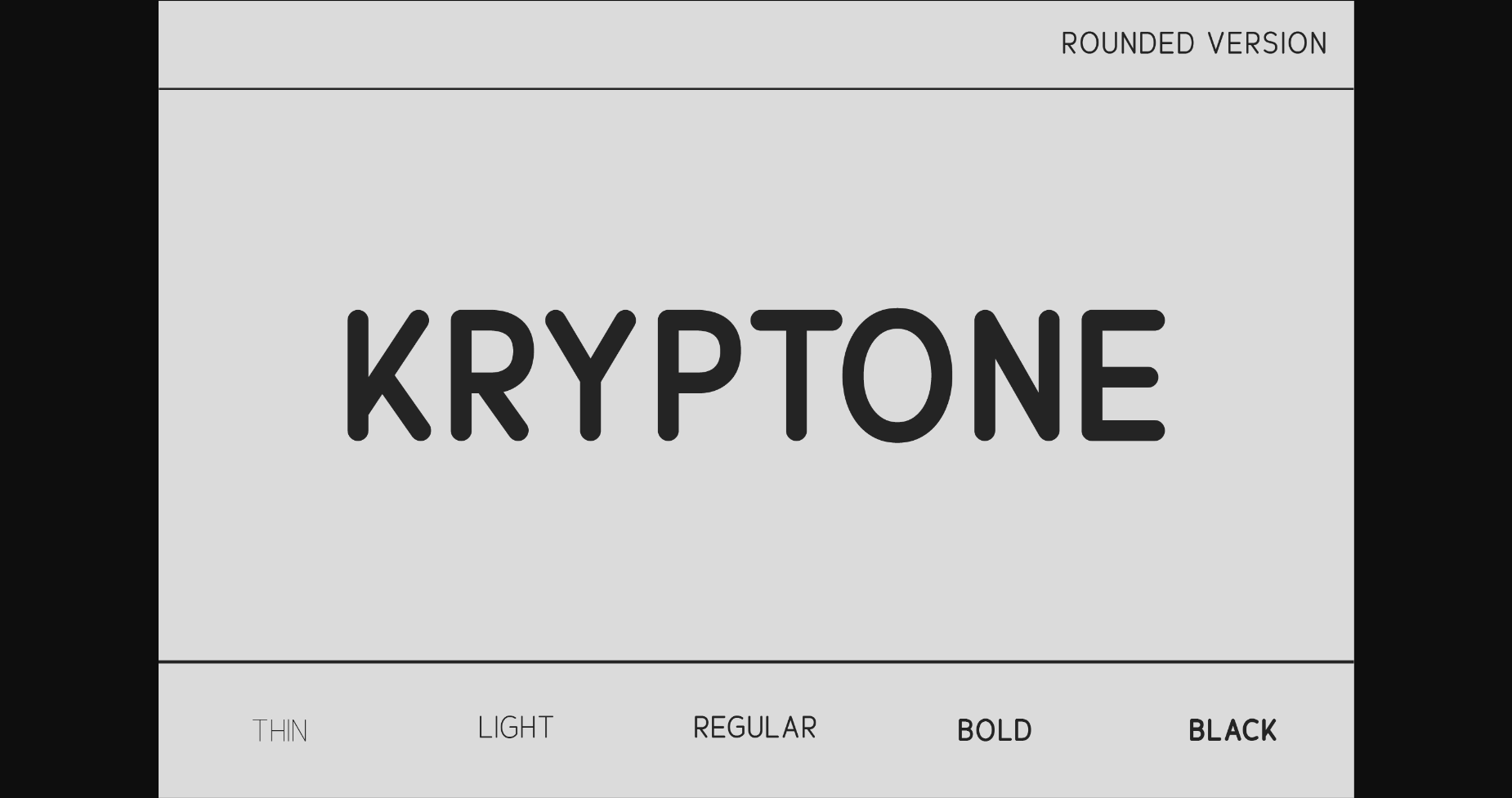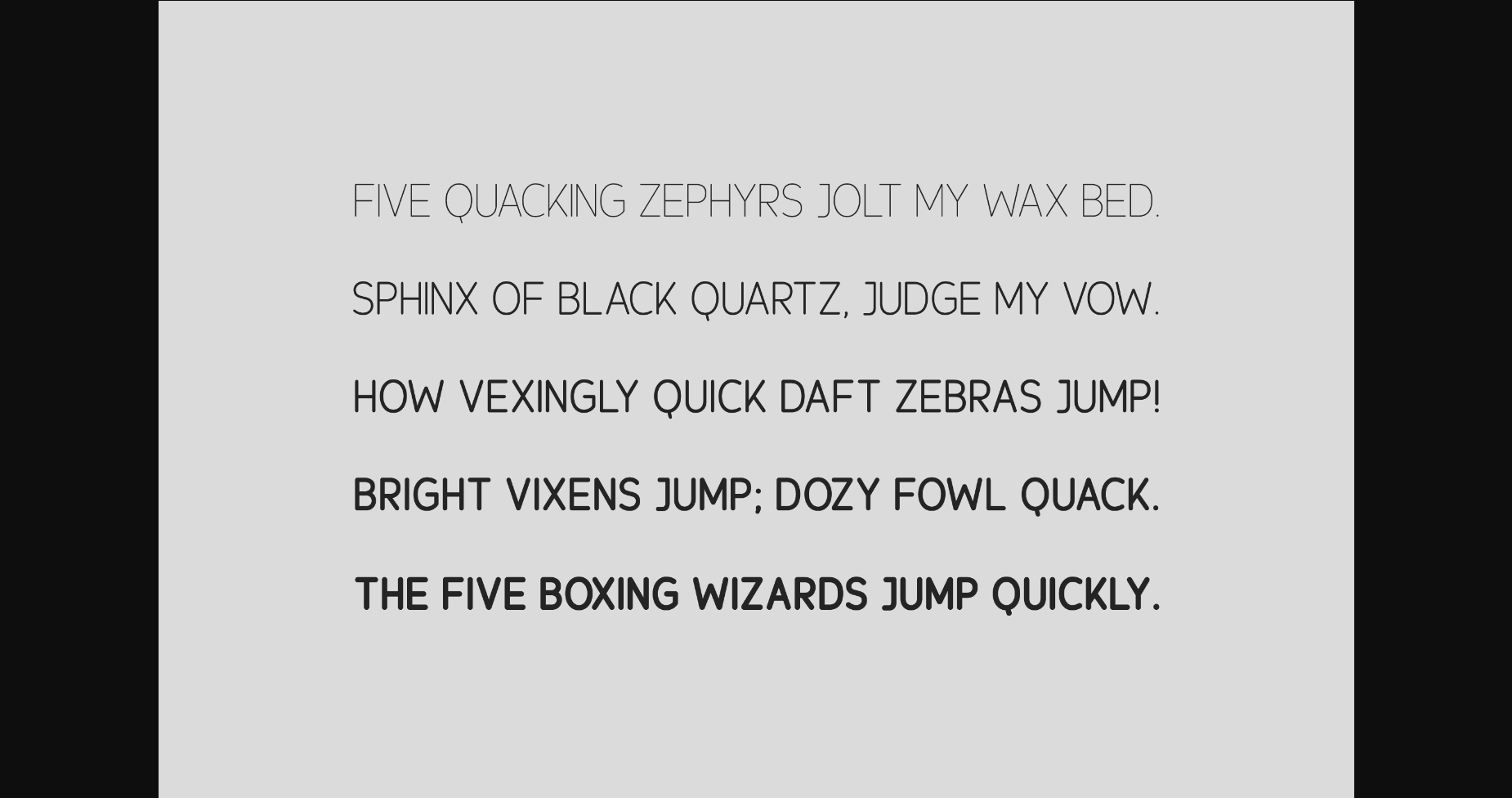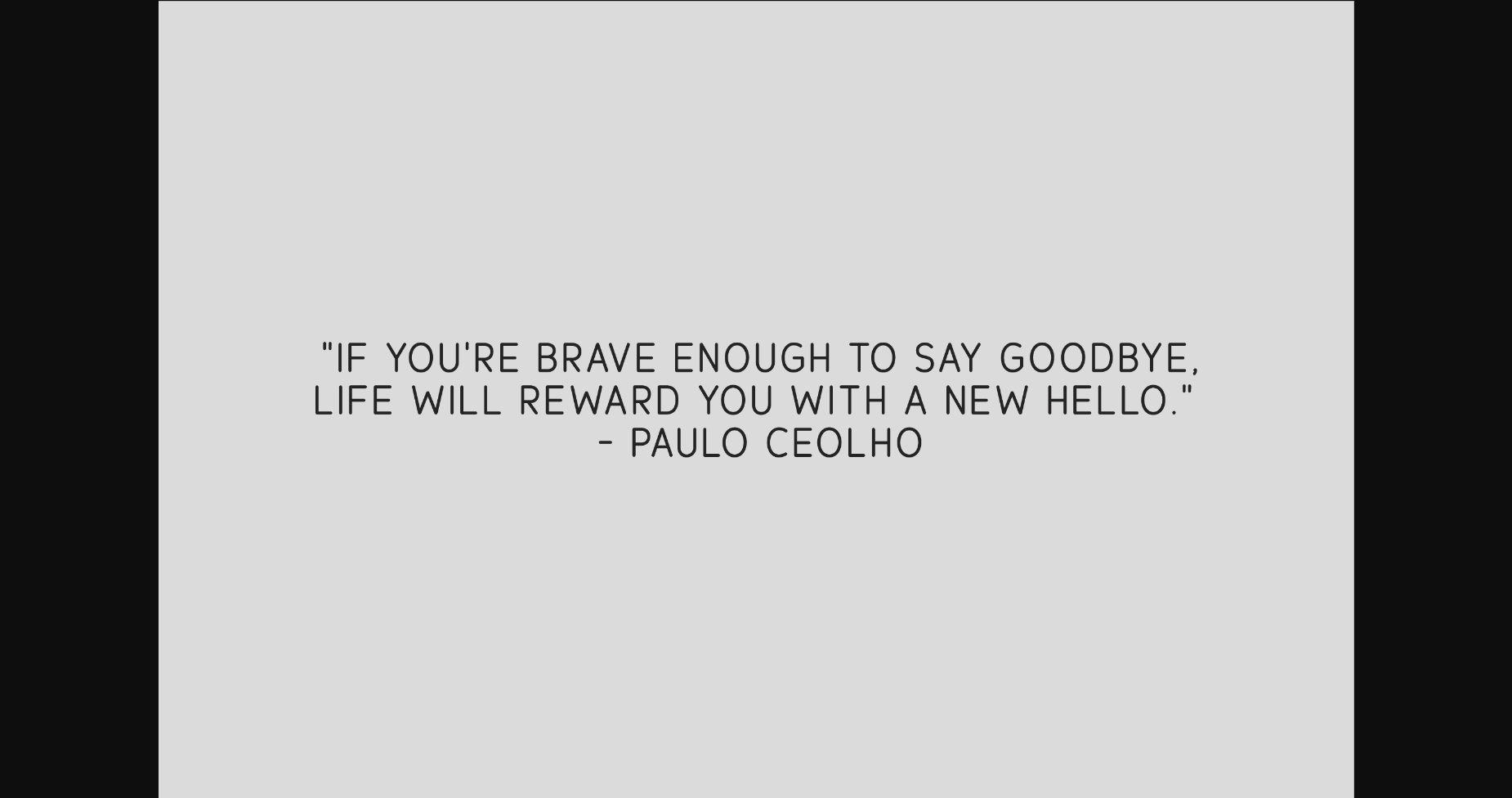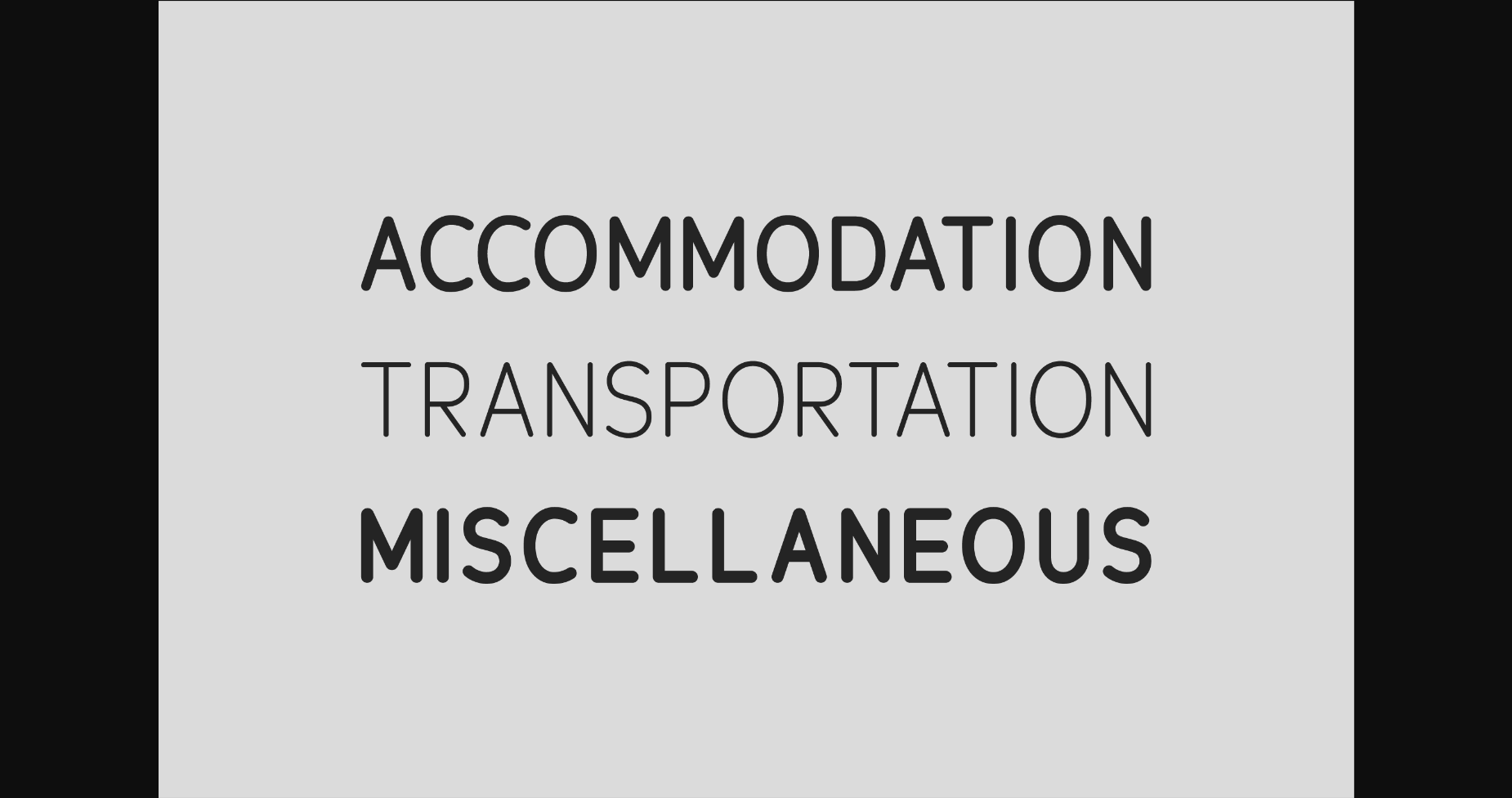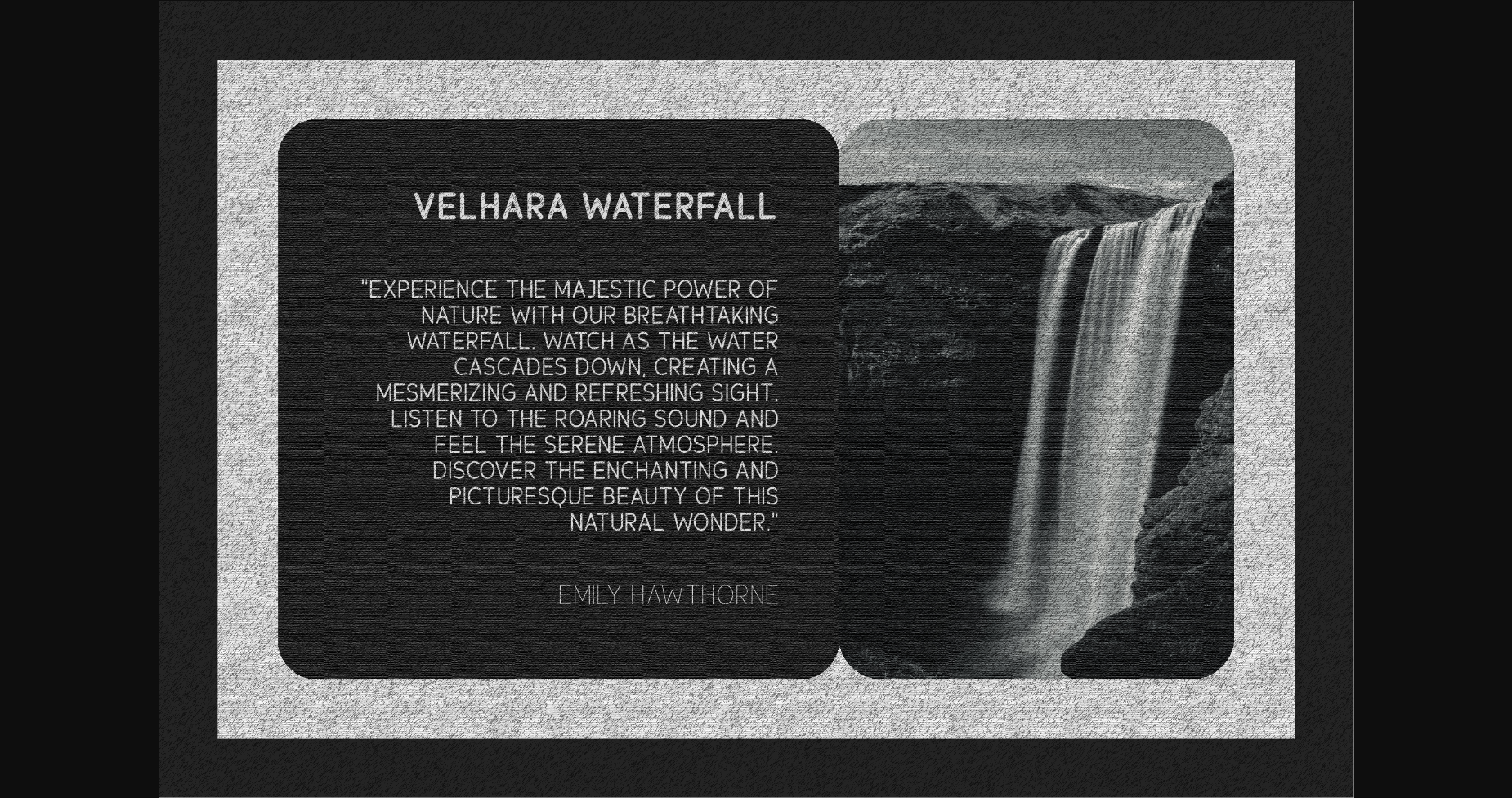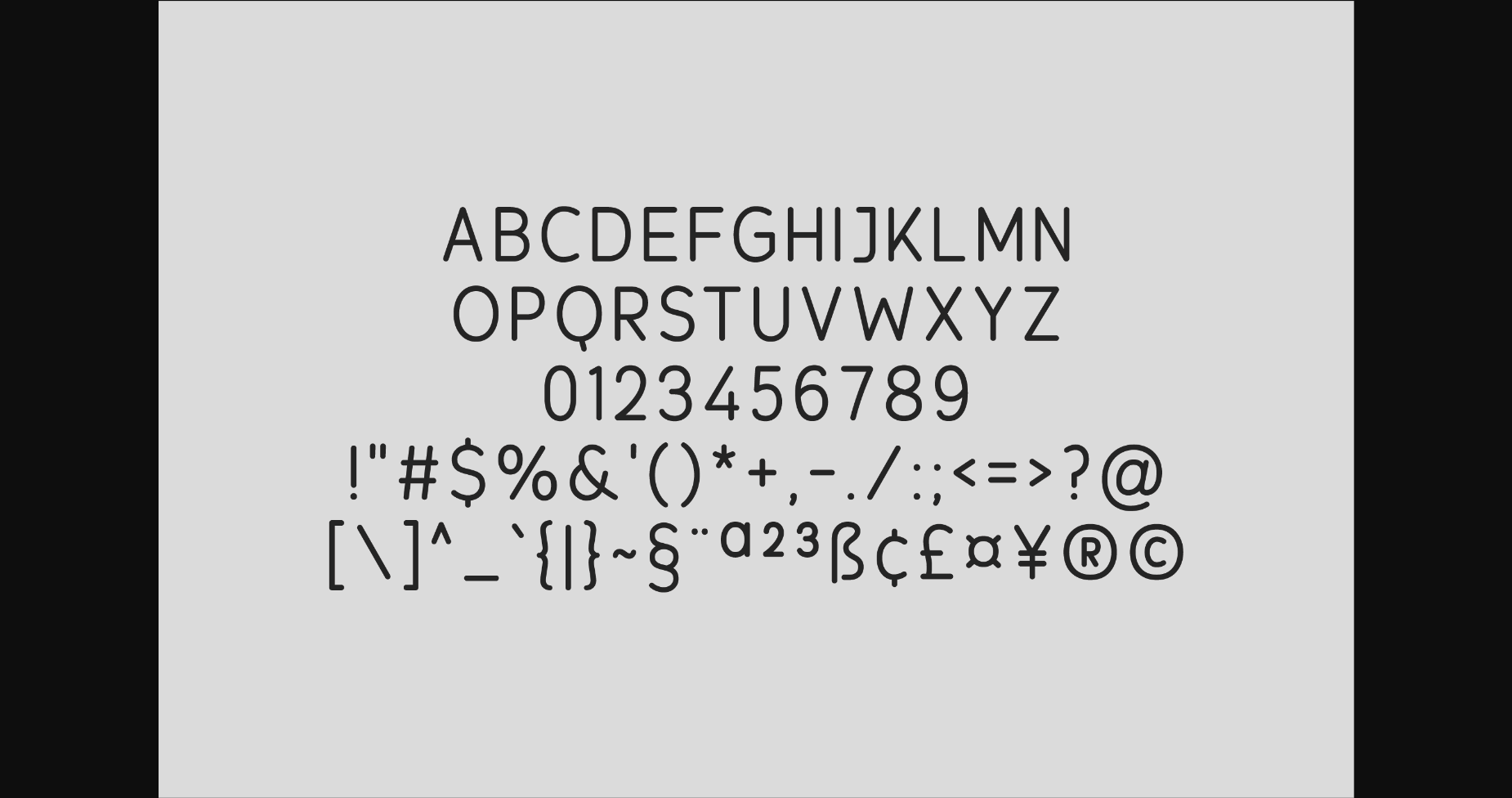
About Kryptone Rounded Font
Kryptone Rounded Font is a unique sans serif typeface that balances modernity with a friendly, approachable touch. Its rounded edges and smooth curves give it a softer and more welcoming appearance. Perfect for logos, headlines, and user interfaces, this versatile font brings a sense of modern elegance and playfulness to any design project.
Introducing our exquisite font family, the Kryptone Rounded an embodiment of elegance and minimalism. With 5 distinct weights, this sans serif collection seamlessly combines modernity and luxury.